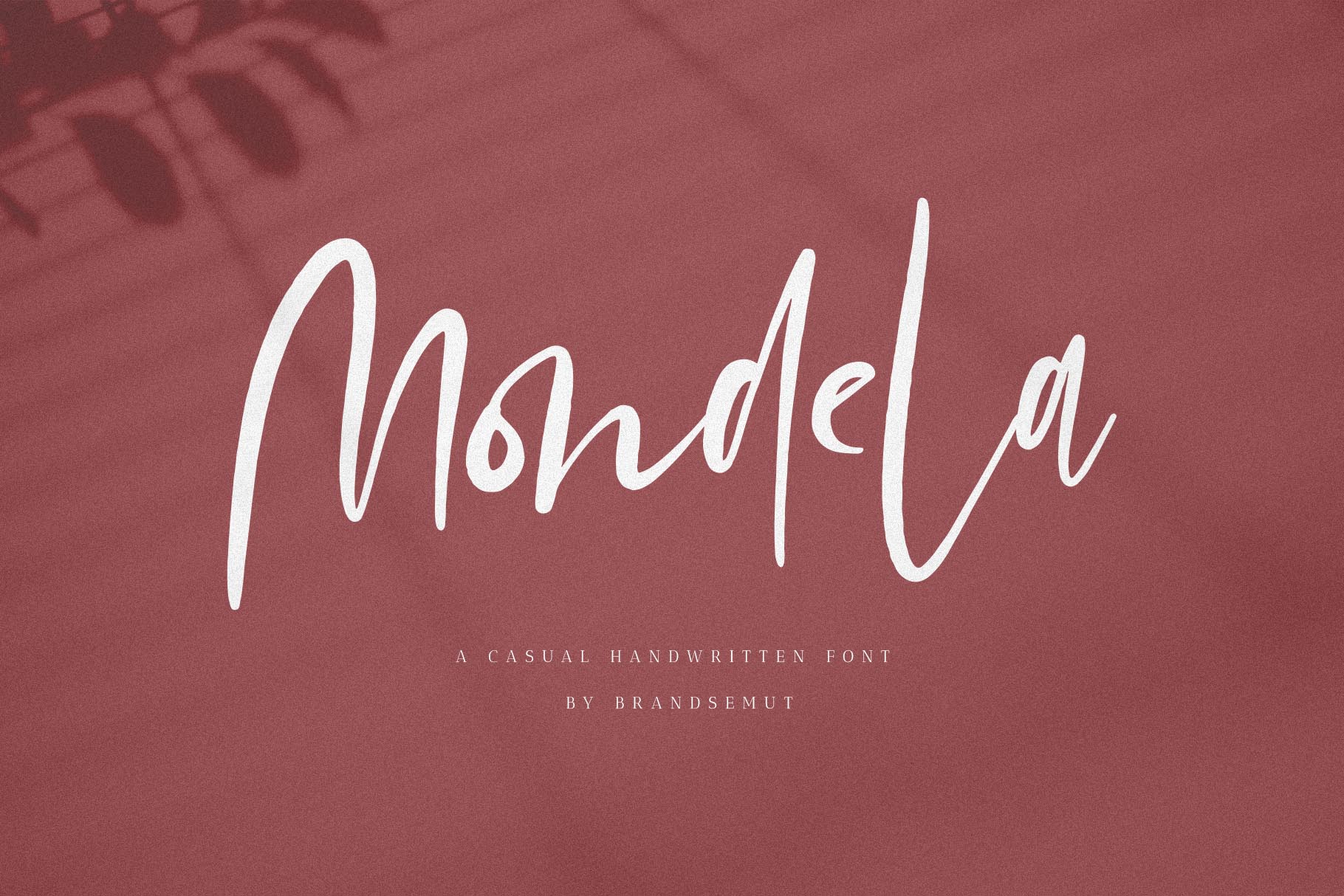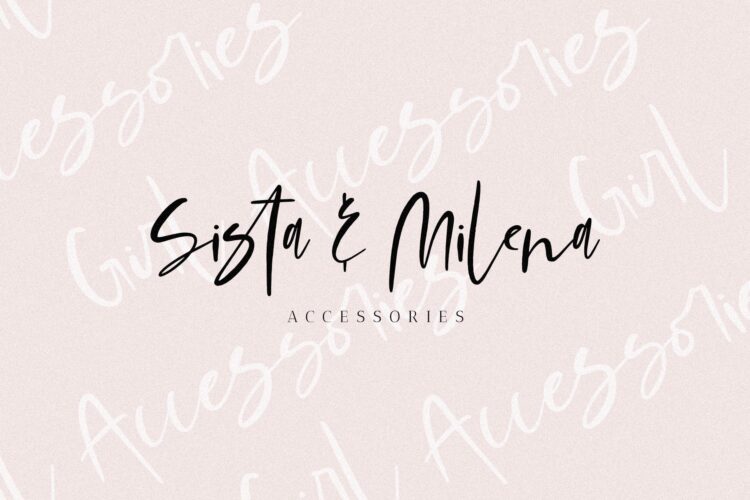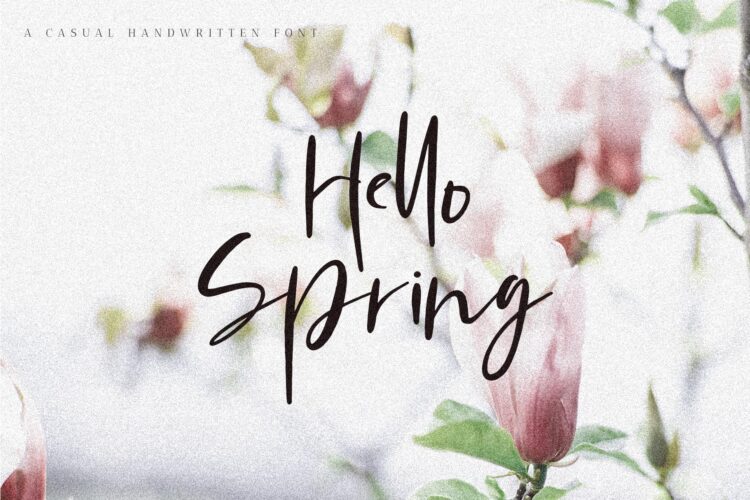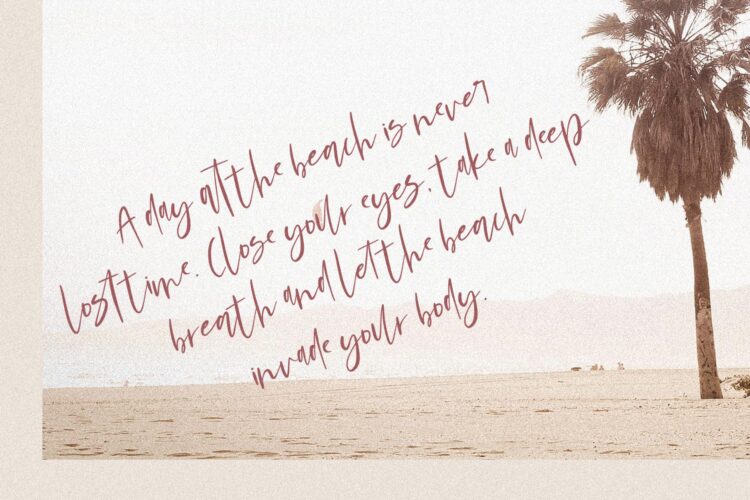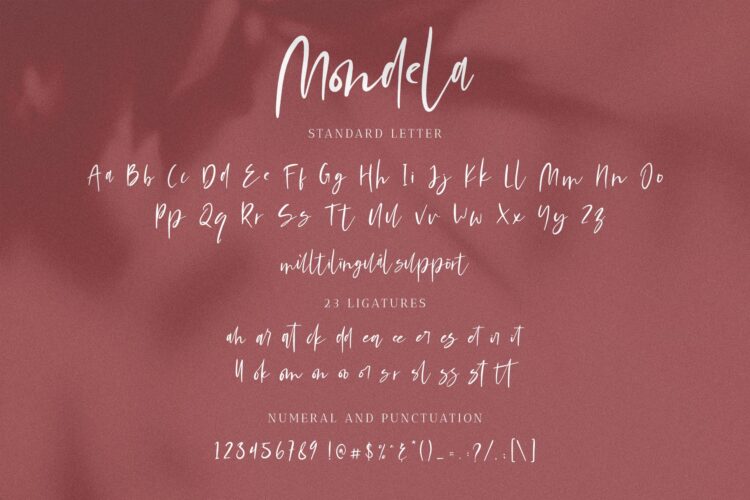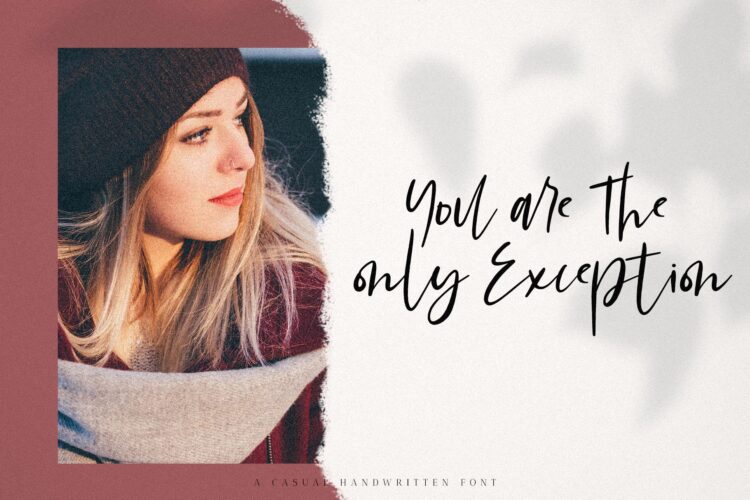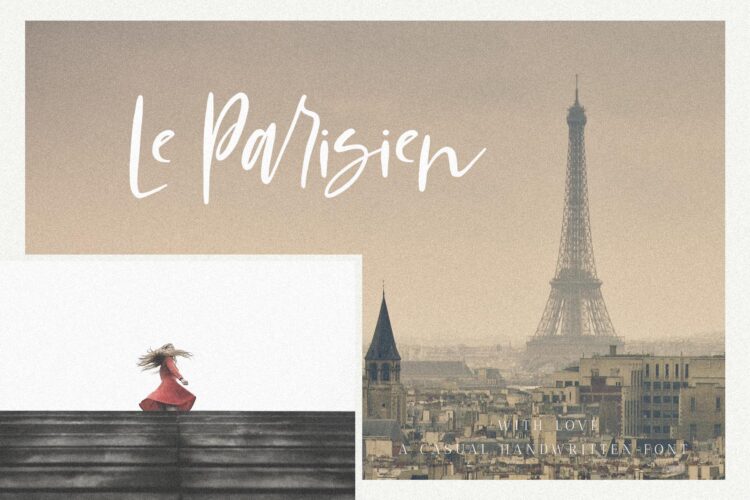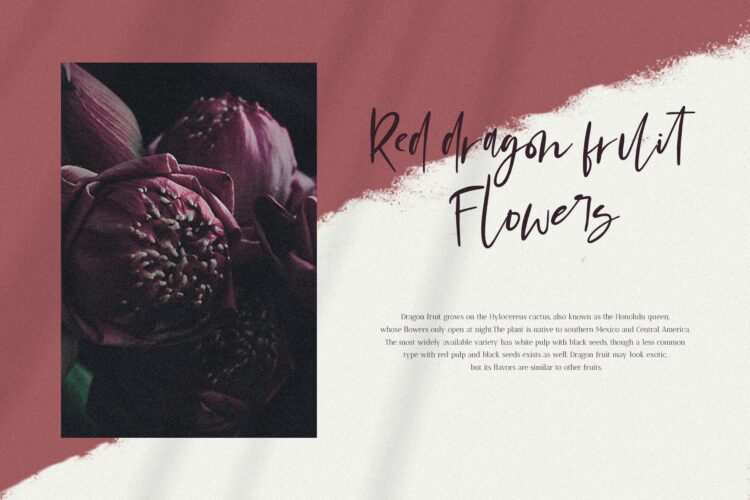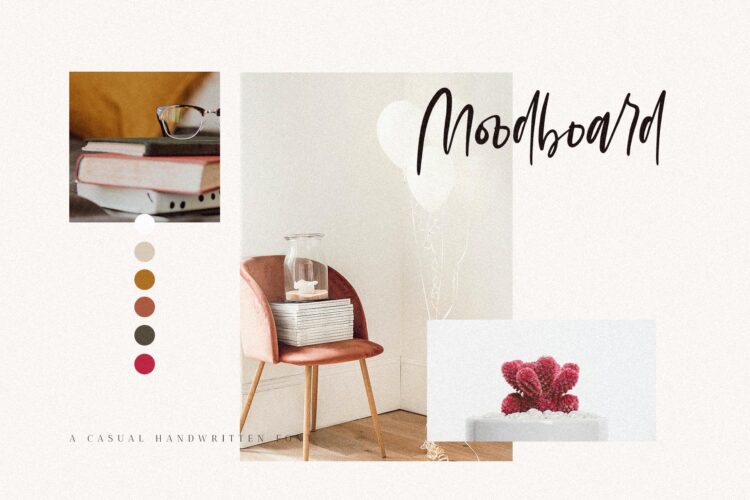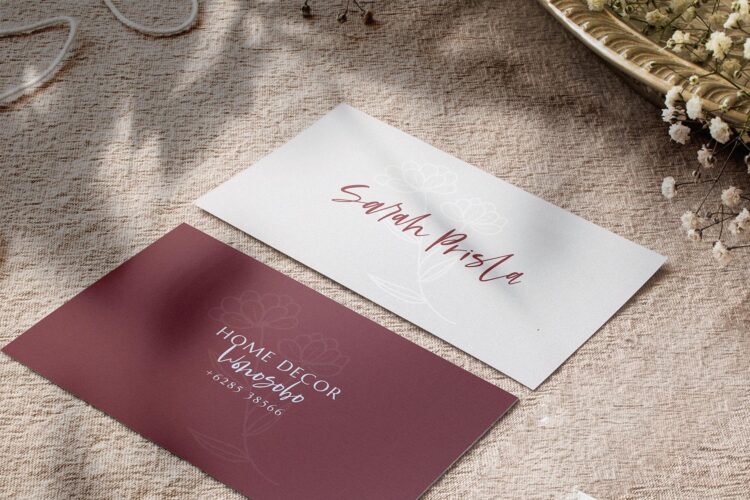
Introducing the new Mondela a casual handwritten font !!! For those of you who are needing a touch of elegant, chic and modernity for your designs, this font was created for you!
It includes full set of uppercase and lowercase letters, multilingual symbols, numerals, punctuation and 23 ligatures.
It’s hugely versatile and the perfect choice for genuine handwritten logos & branding, advertisement text, quotes, headers and product packaging.
Mondela – Casual Handwritten Font